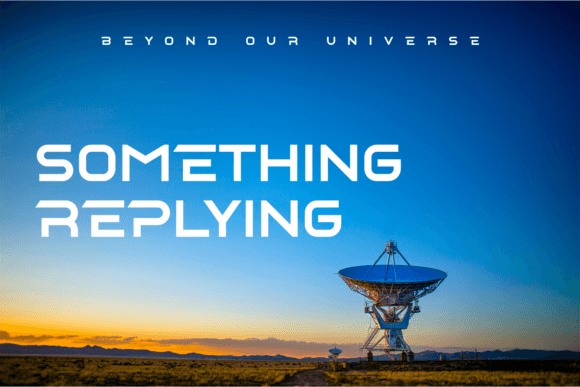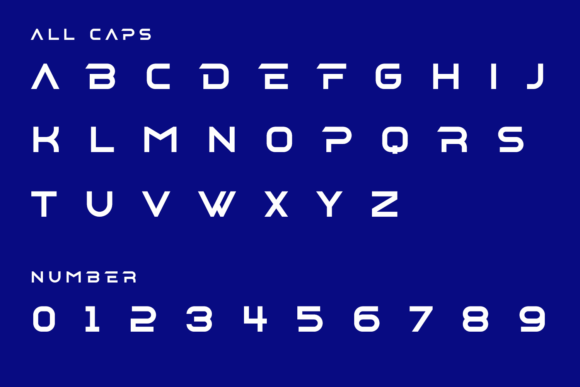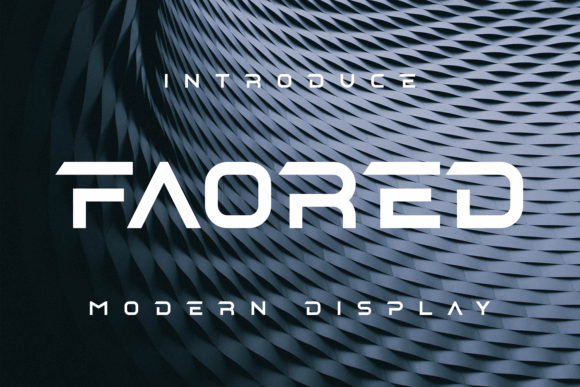
Introducing Faored Font: The Ultimate Display Font for Creative Projects
Are you tired of using the same old fonts in your designs? Do you want to add a touch of uniqueness and personality to your creations? Look no further than Faored Font, a cool and distinctive display font that’s sure to elevate your font library. In this article, we’ll explore the features and benefits of Faored Font, and why it’s a must-have for designers and crafters.
What is Faored Font?
Faored Font is a modern display font designed to make a statement. Its unique and stylish design makes it perfect for a wide range of creative projects, from branding and advertising to packaging and digital media. Whether you’re a professional designer or a DIY crafter, Faored Font is an excellent addition to your font collection.
Key Features of Faored Font
- Unique Design: Faored Font boasts a one-of-a-kind design that’s sure to grab attention. Its distinctive style sets it apart from other fonts, making it perfect for projects that require a bit of personality.
- Versatility: Faored Font is incredibly versatile, making it suitable for a wide range of projects and topics. Whether you’re designing a logo, brochure, or social media graphic, Faored Font is up to the task.
- High-Quality: Faored Font is a high-quality font designed to produce crisp and clear results, even at large sizes.
Benefits of Using Faored Font
So, why should you choose Faored Font for your next project? Here are just a few benefits of using this amazing display font:
- Adds Personality: Faored Font adds a touch of personality and style to your designs, setting them apart from the competition.
- Increases Engagement: The unique design of Faored Font is sure to grab attention and increase engagement with your audience.
- Elevates Your Brand: Faored Font can help elevate your brand by adding a professional and stylish touch to your marketing materials.
- Perfect for Creative Projects: Faored Font is perfect for creative projects, such as art journals, scrapbooking, and other crafty endeavors.
Who Can Benefit from Faored Font?
Faored Font is perfect for a wide range of designers and crafters, including:
- Graphic Designers: Faored Font is a great addition to any graphic designer’s font library, providing a unique and stylish option for clients.
- Branding Experts: Faored Font can help branding experts create memorable and engaging brand identities.
- Digital Artists: Faored Font is perfect for digital artists looking to add a touch of personality to their artwork.
- Crafters: Faored Font is great for crafters who want to add a professional touch to their DIY projects.